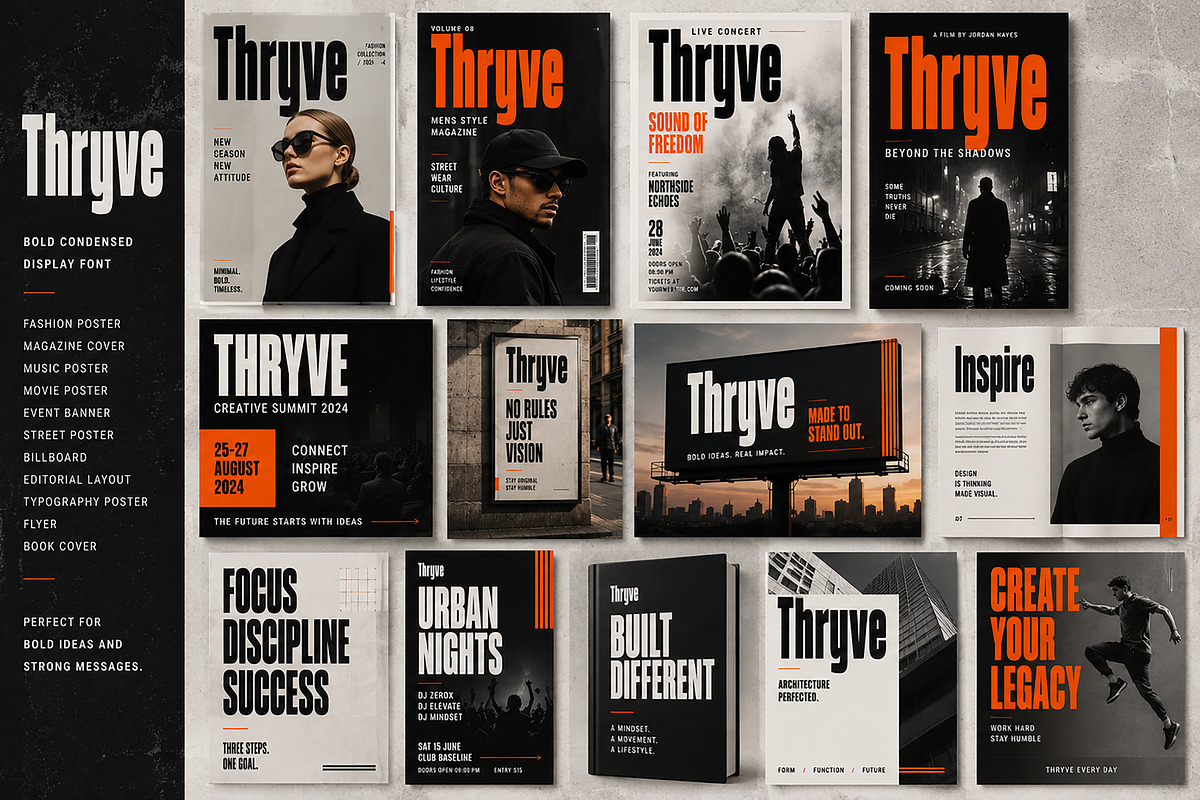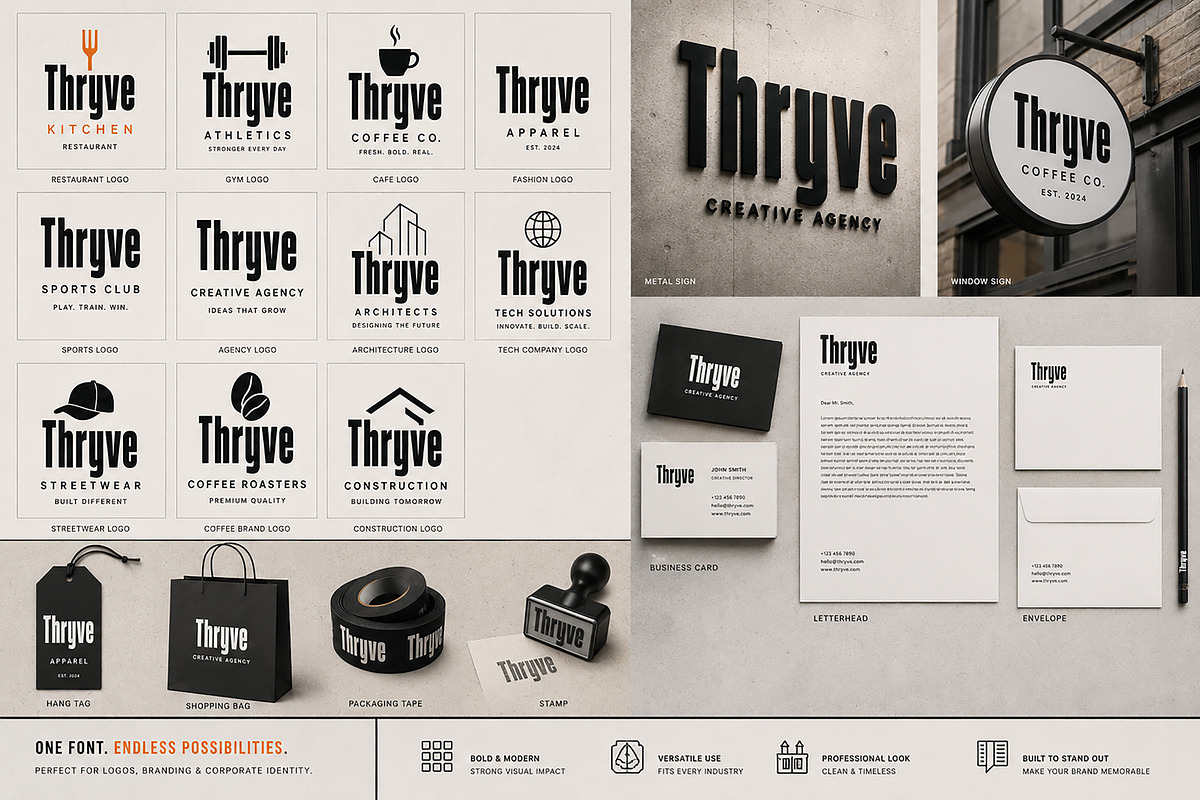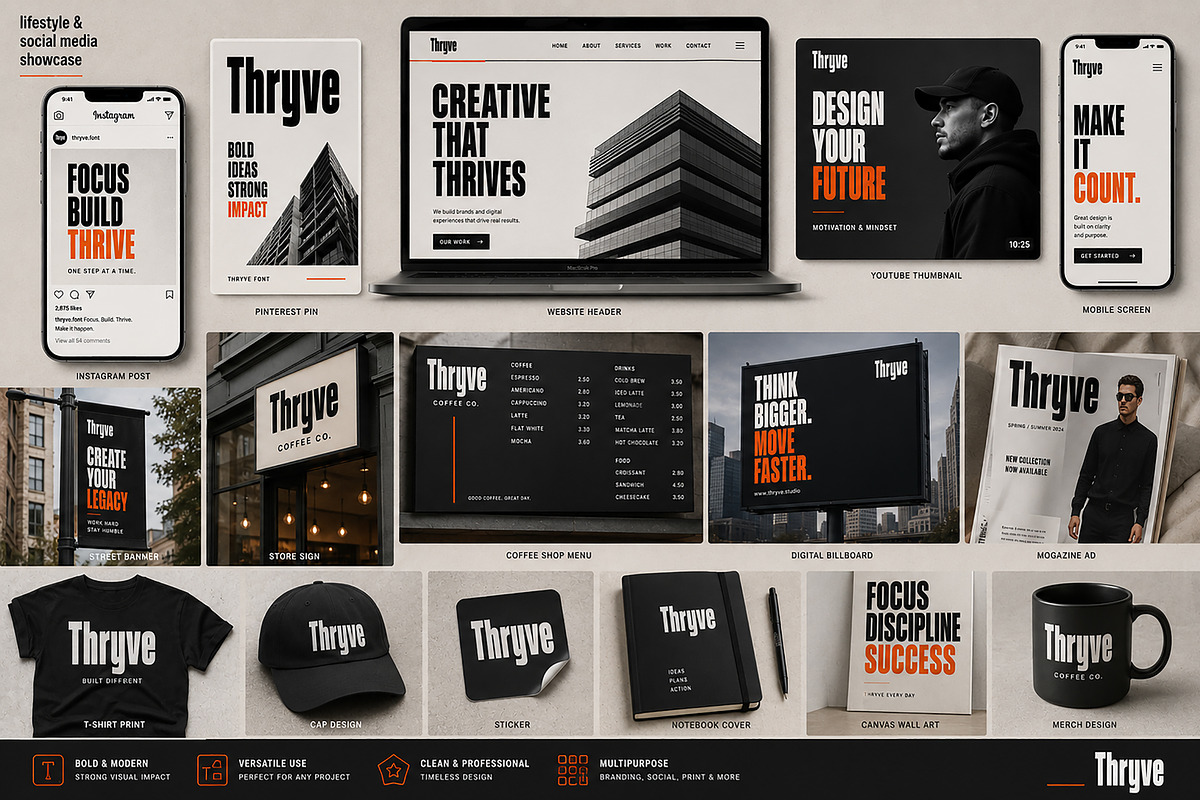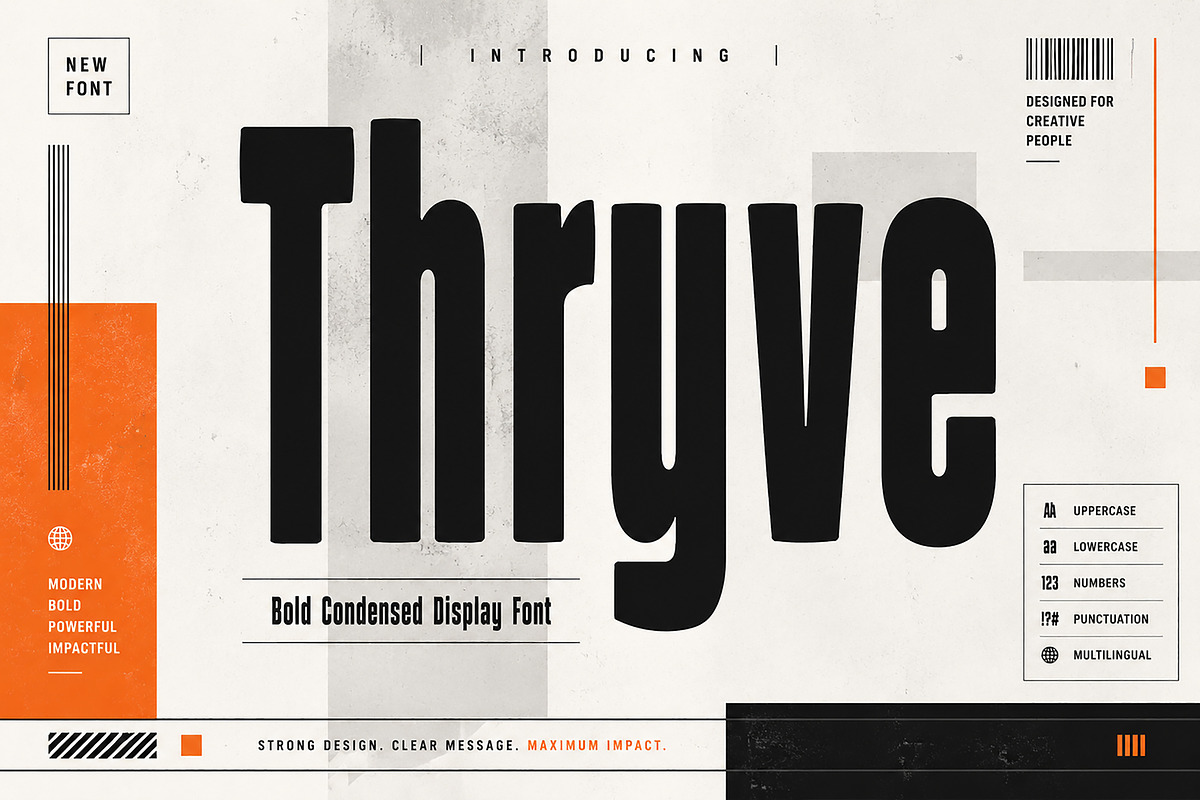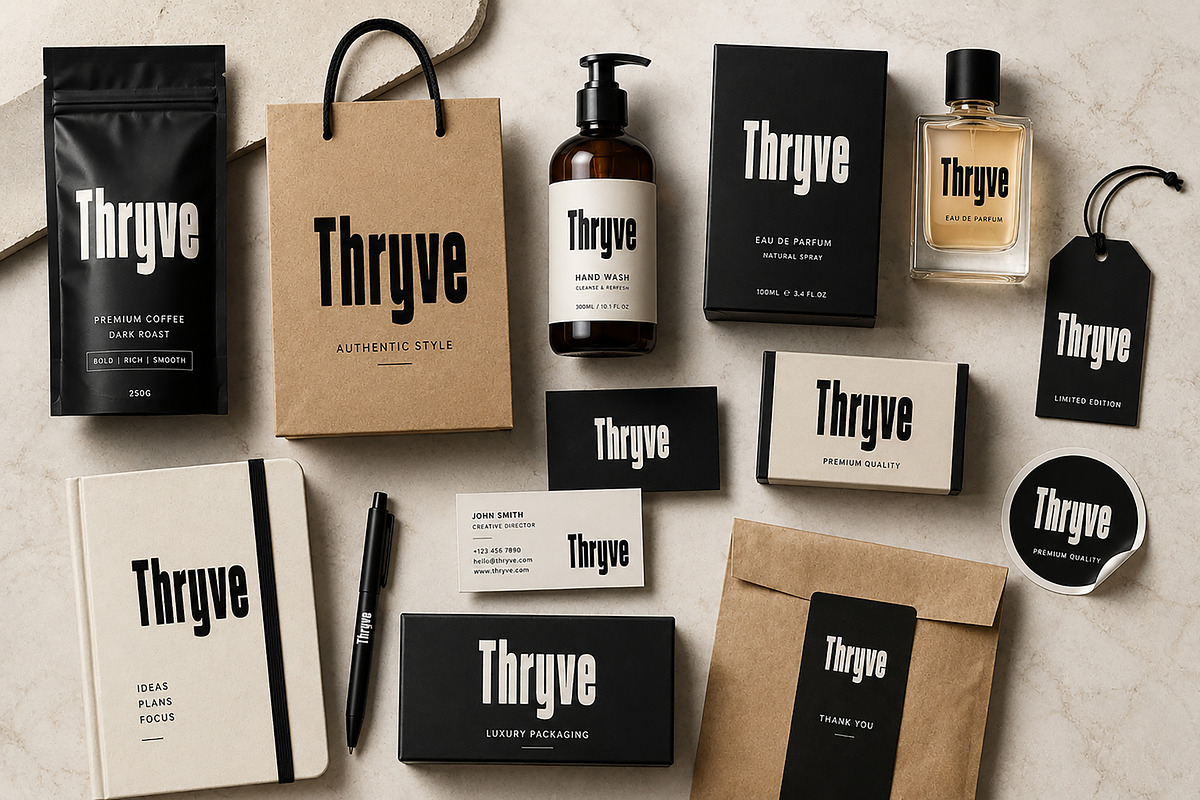
Thryve
Thryve – Bold Condensed Display Font
Thryve is a bold condensed display font crafted for designers who want to make a strong visual impact. With its tall proportions, powerful strokes, and clean modern structure, Thryve is designed to command attention in headlines, logos, branding, posters, packaging, and digital media.
Its condensed design allows you to fit more characters into tight spaces while maintaining excellent readability and a confident, professional appearance. Whether you're creating a luxury brand identity, streetwear graphics, sports campaigns, editorial layouts, or modern advertising, Thryve delivers bold typography that stands out.
Perfect for both print and digital projects, Thryve combines contemporary minimalism with high-impact display styling, making it an excellent choice for creative professionals, agencies, and brands looking for a distinctive typographic voice.
Brand Identity
Corporate Branding
Fashion Branding
Streetwear
Sports Graphics
Editorial Design
Magazine Covers
Posters
Headlines
Product Labels
Advertising
Billboard Design
Website Headers
YouTube Thumbnails
Merchandise Design
Signage
Bold Condensed Display Style
Modern & Minimal Design
Uppercase Letters
Lowercase Letters
Why You'll Love Thryve
Strong modern personality
Clean and professional appearance
High-impact headlines
Excellent for branding projects
Perfect for contemporary marketing materials
Versatile across print and digital media
Designed for maximum visual impact